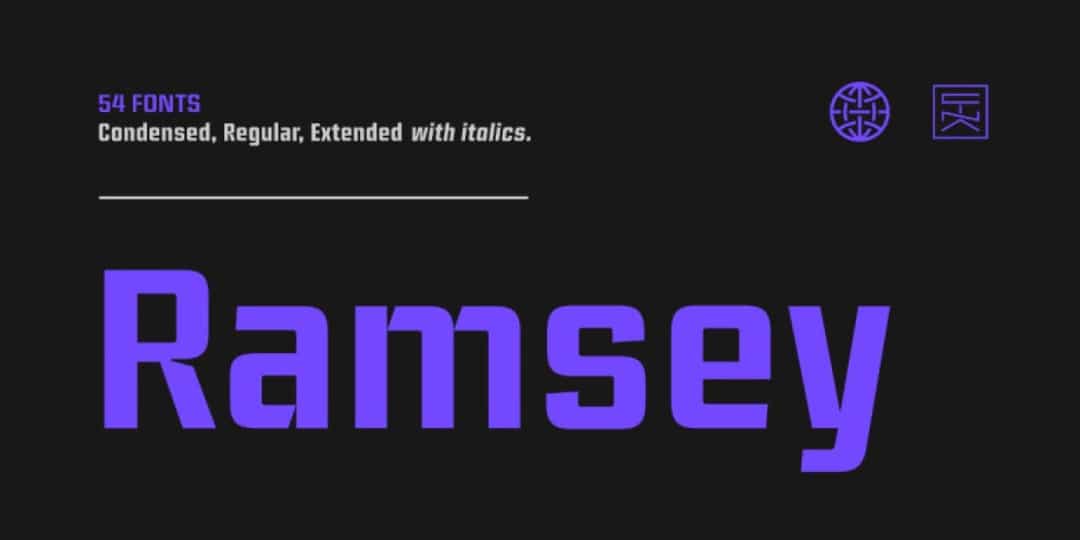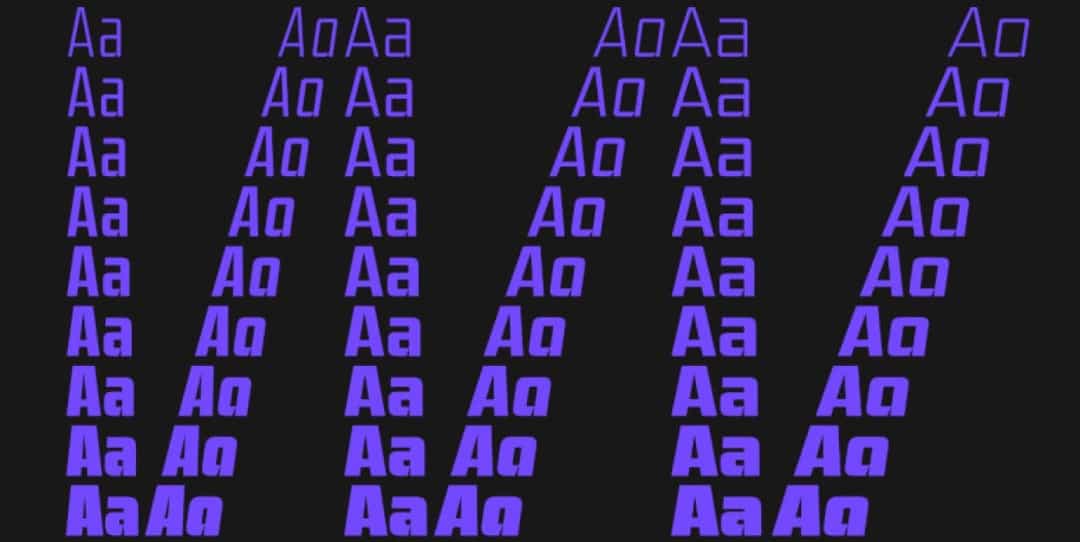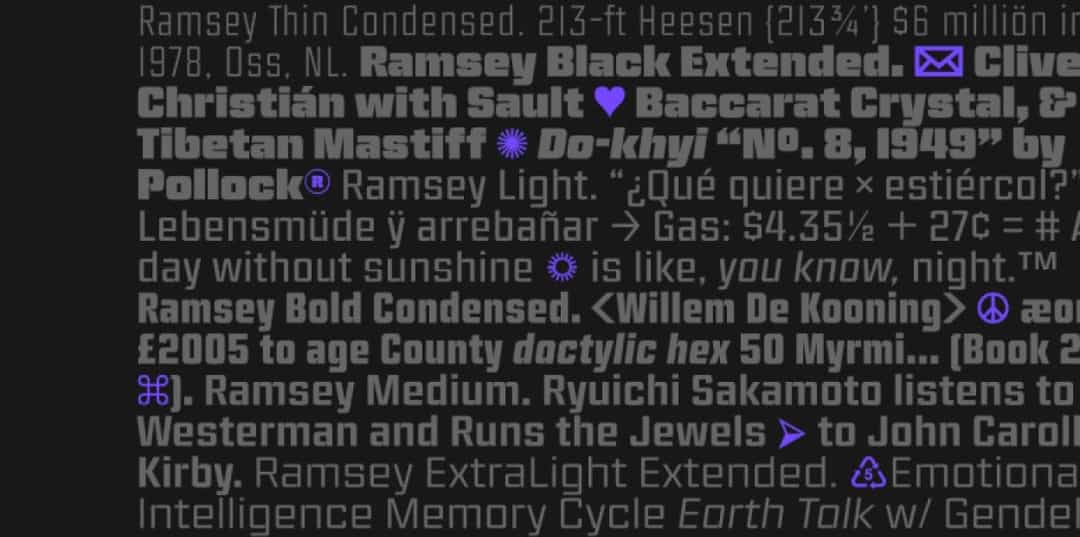
Ramsey is a strong and warm font with round corners and sharp, quick lines, making for rapid cuts. From thin condensed strokes to extended black strokes, Ramsey has been used in film titles as well as art publications.